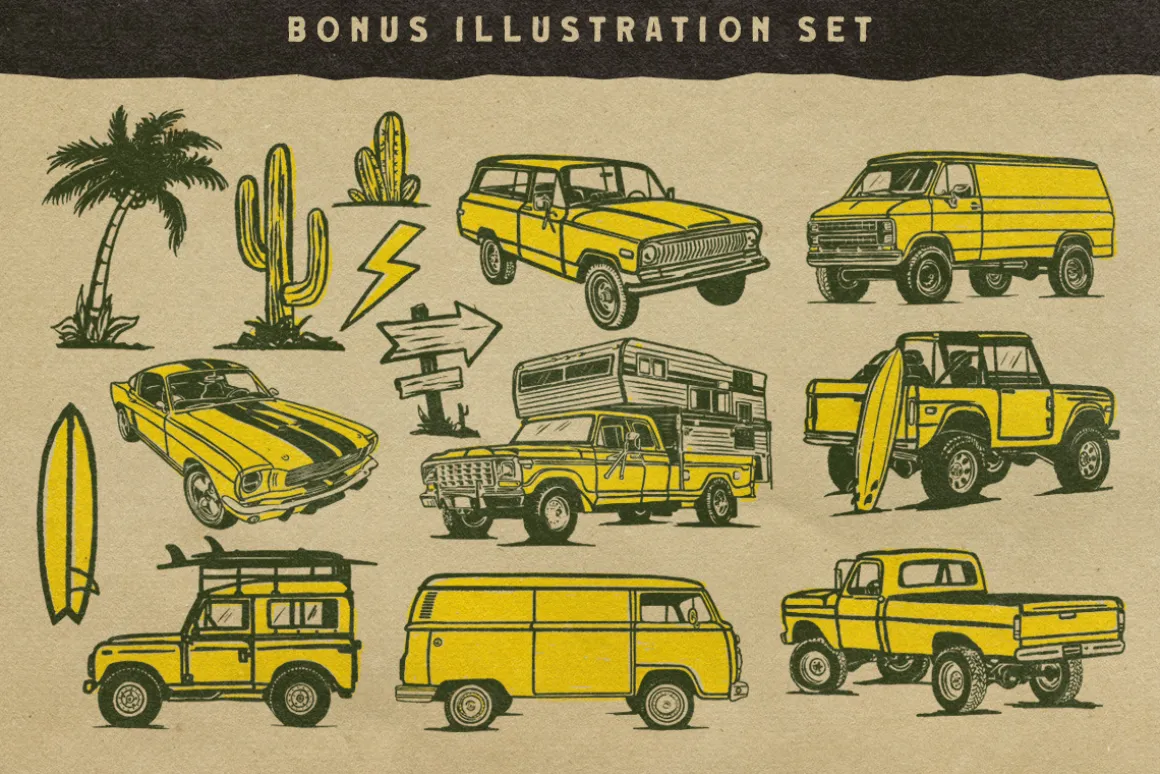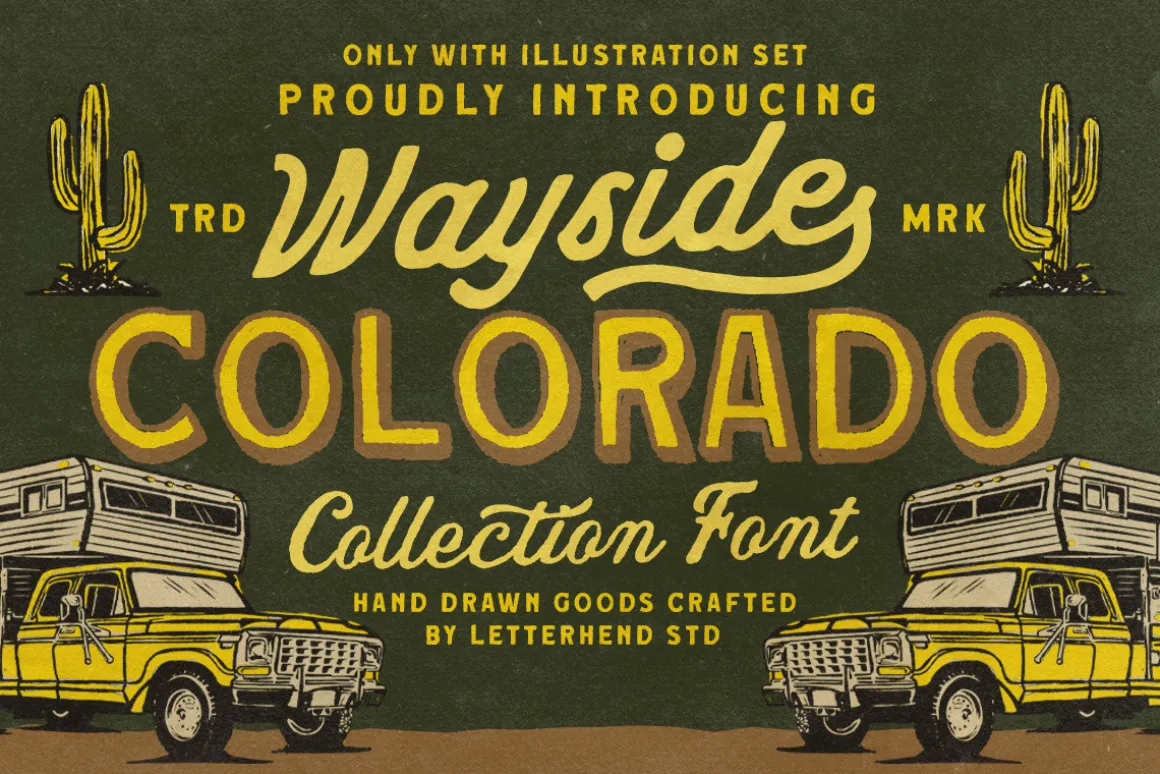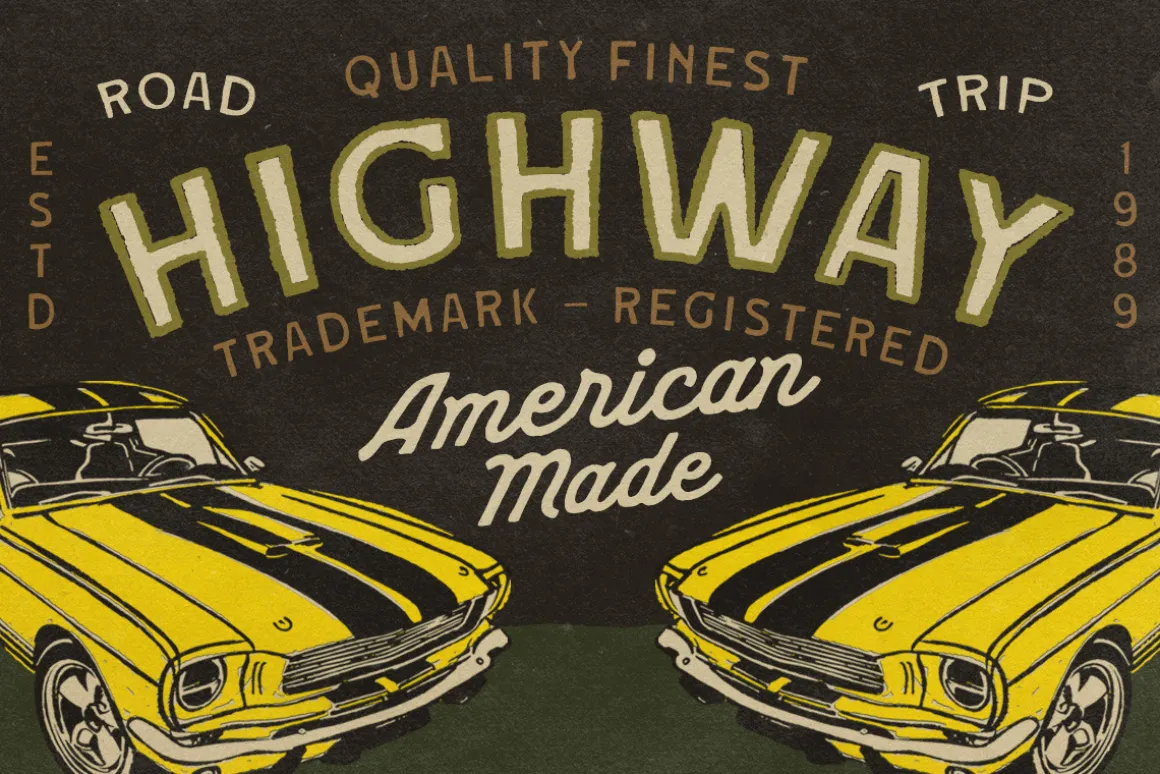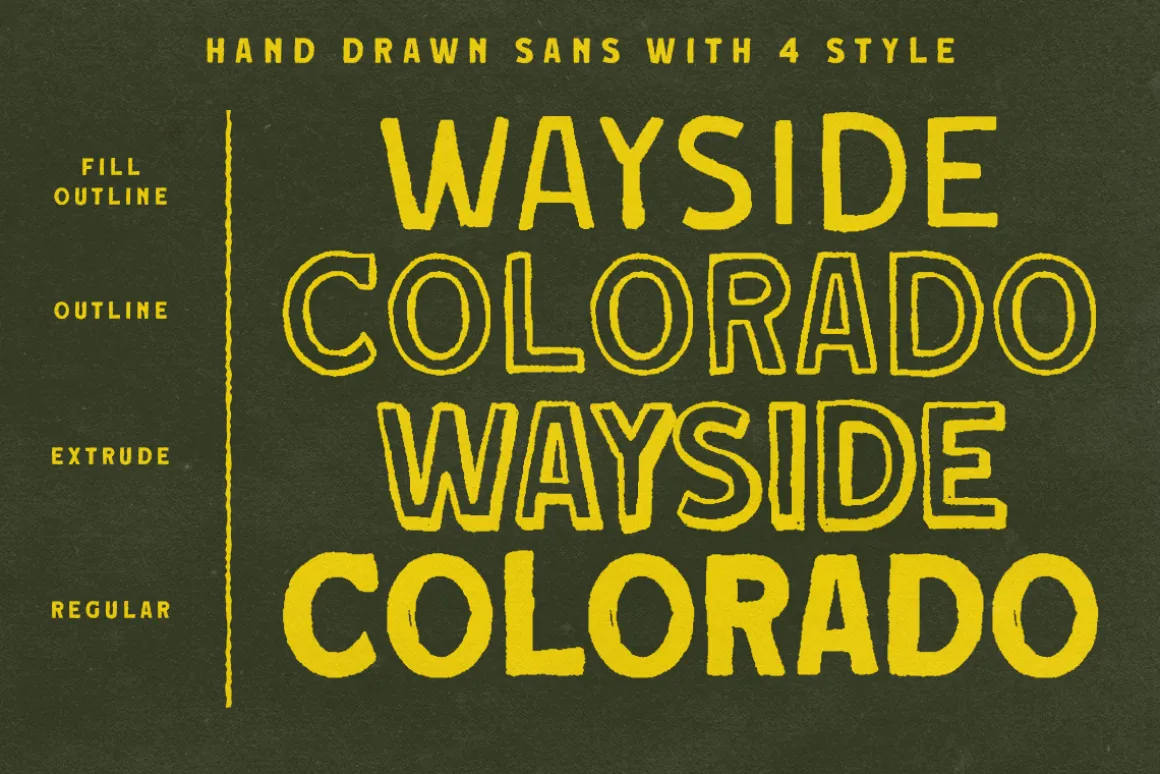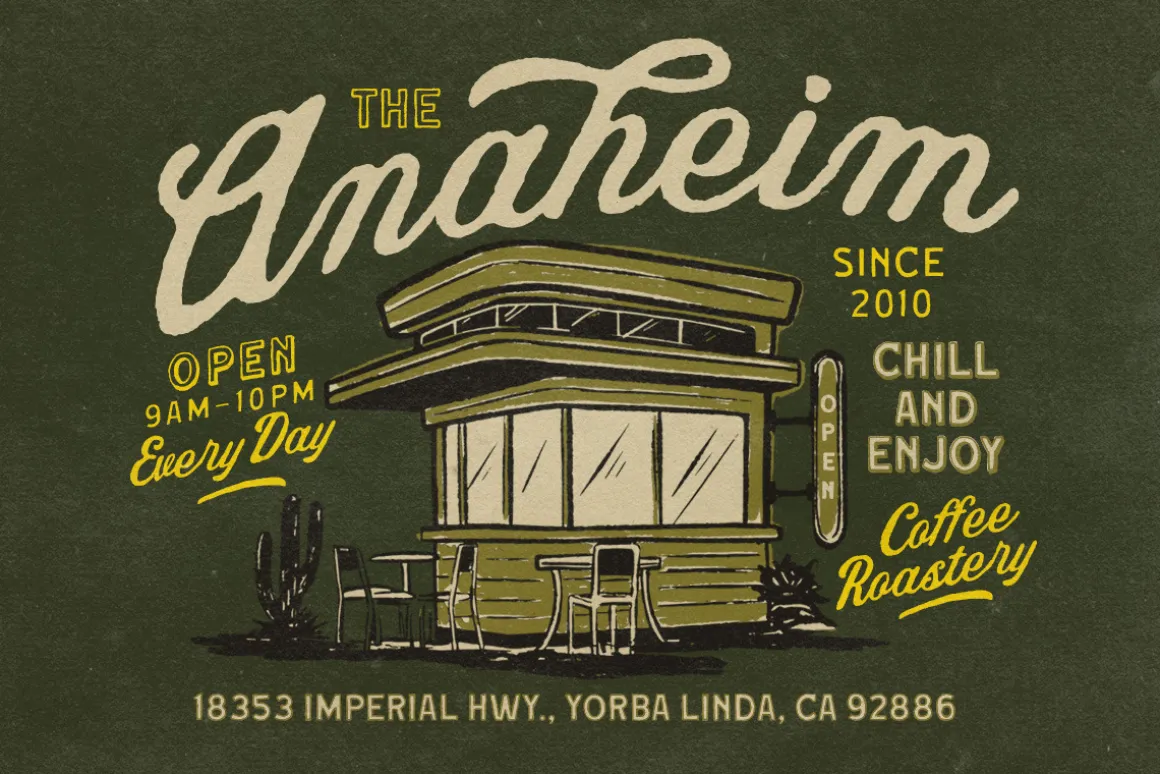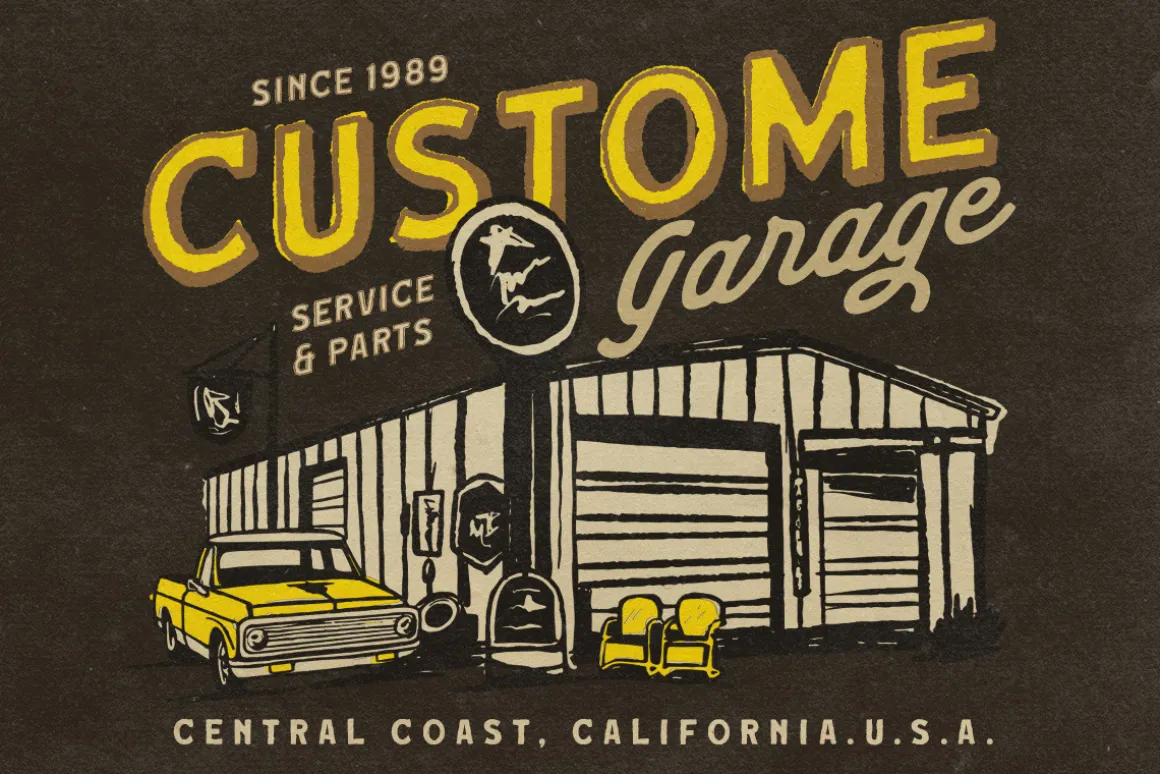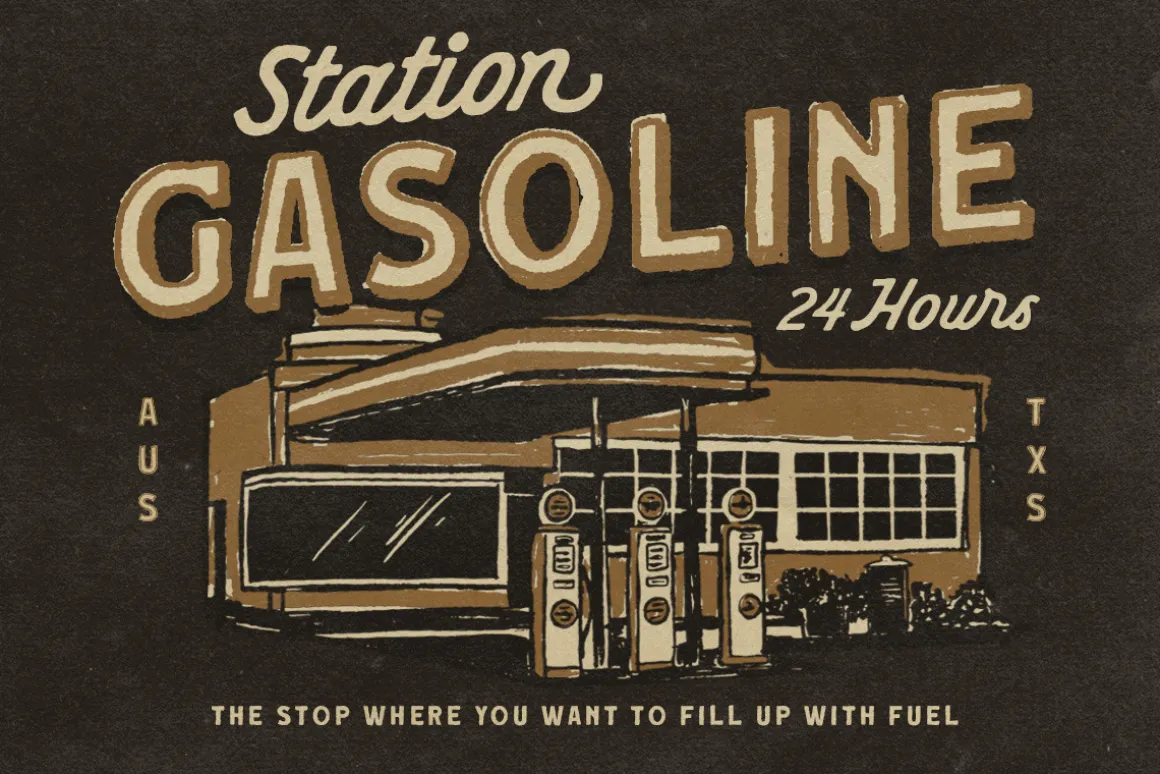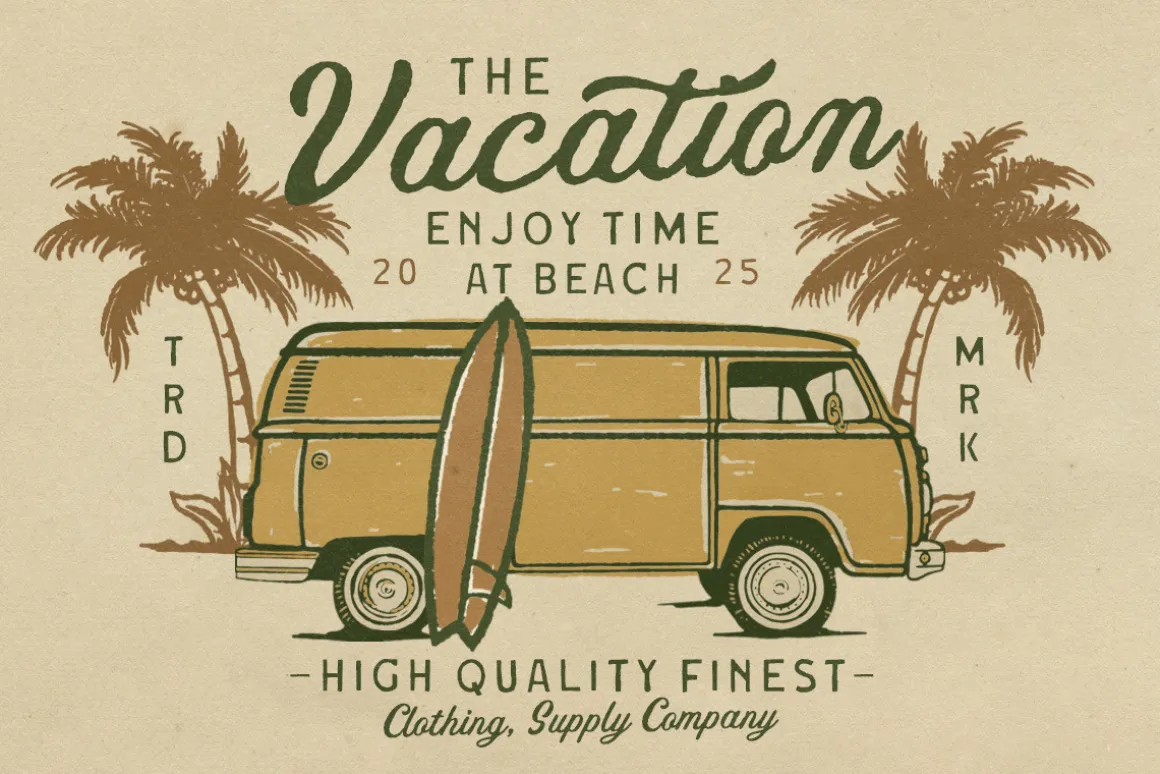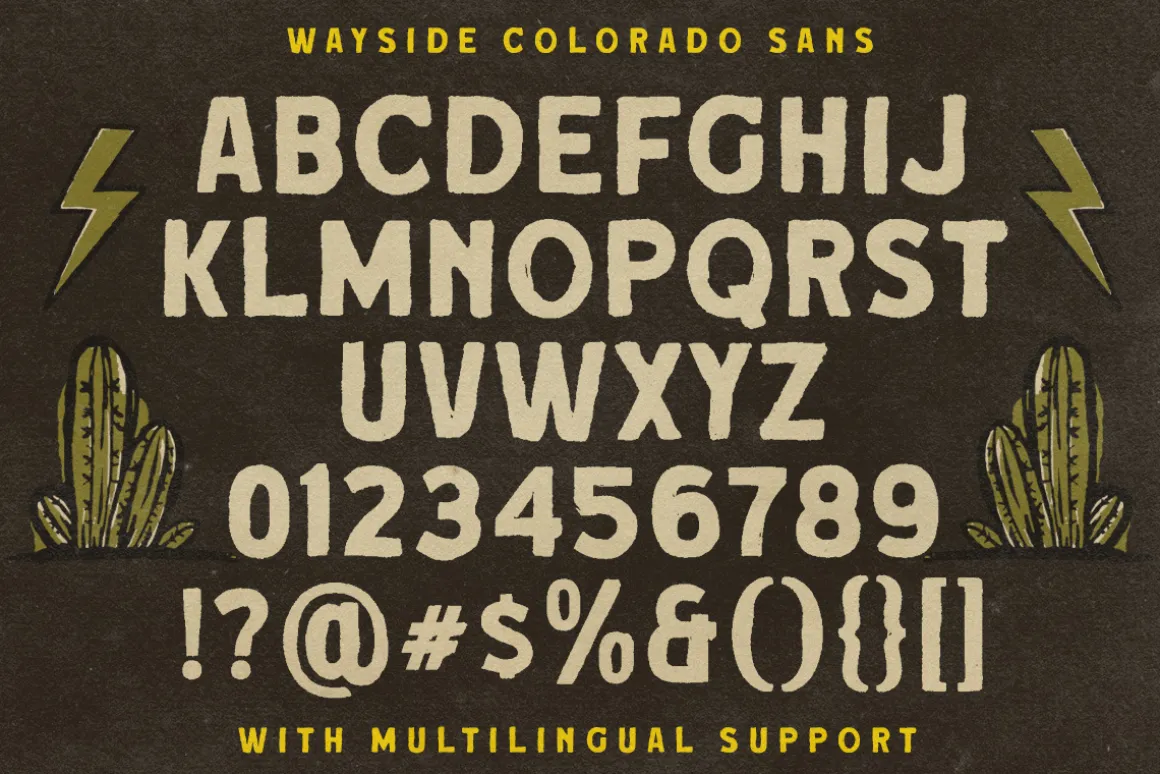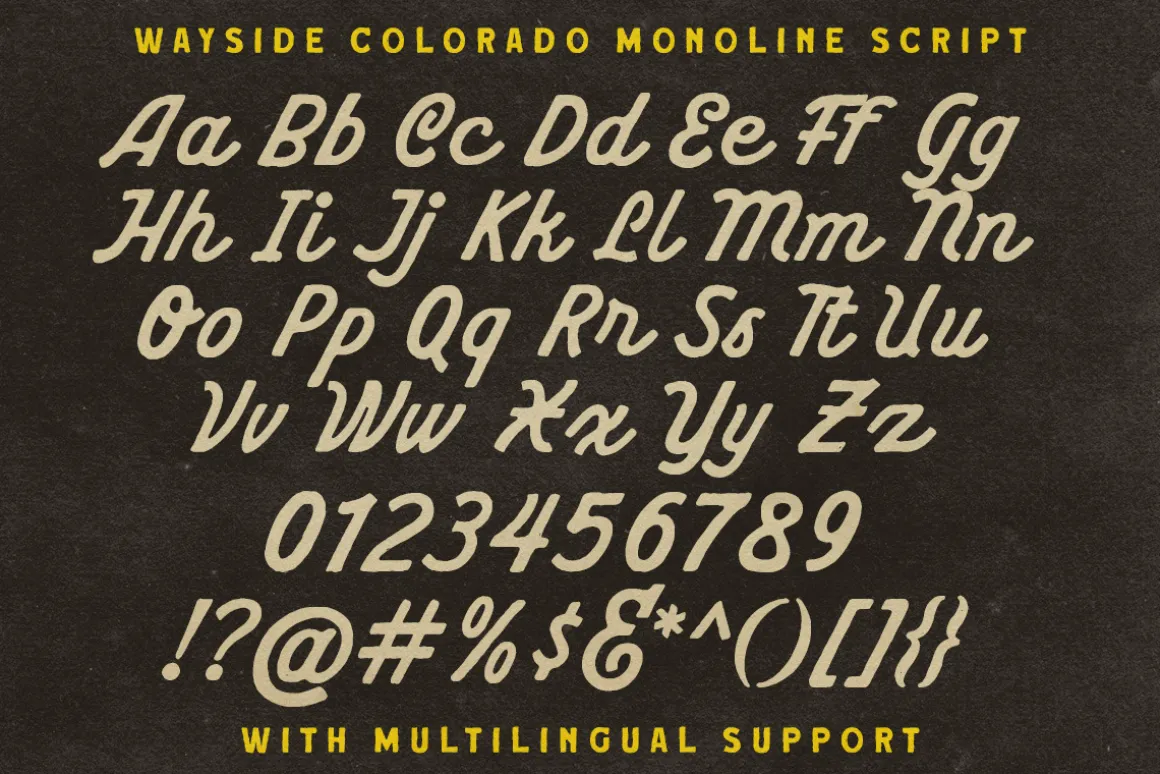
Take a trip down memory lane with Wayside Colorado Collection Font—a beautifully handcrafted typeface inspired by retro road trips, sun-faded signage, and classic western vibes. The rough stroke add a touch of warmth and authenticity to logos, posters, apparel, and branding. Whether you’re designing for a vintage-style café, an adventure brand, or a Western-themed event, this font brings personality and charm that stands the test of time.
- Handrawn Sans – regular, fill outline & extrude
- Classic script
- Monoline script
- Outdoor trip illustration
- Uppercase & lowercase
- Numbers and punctuation
- Alternates characters
- Multilingual Support